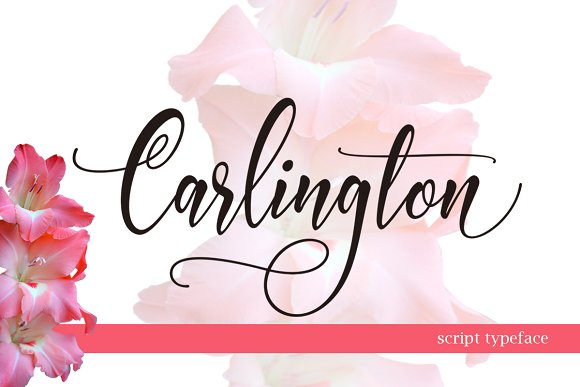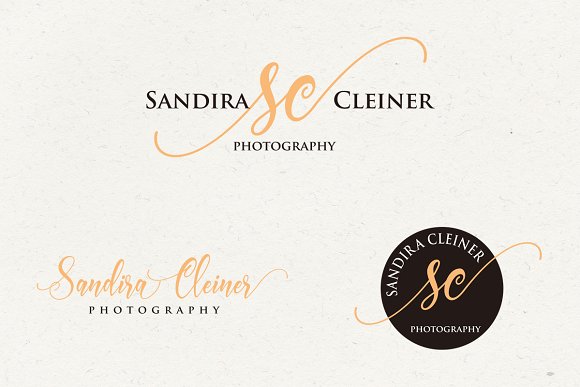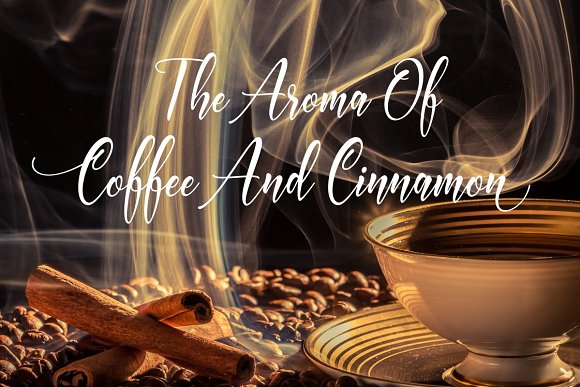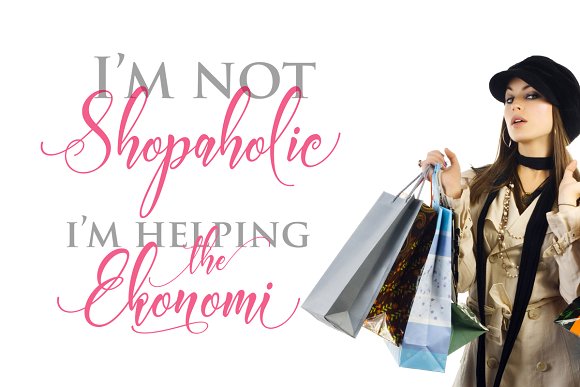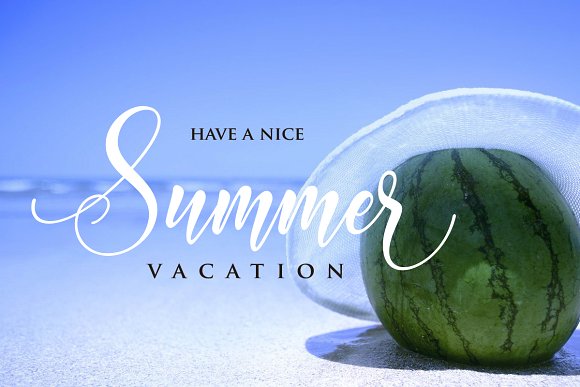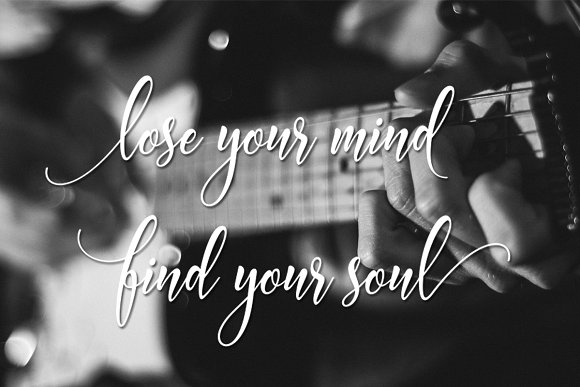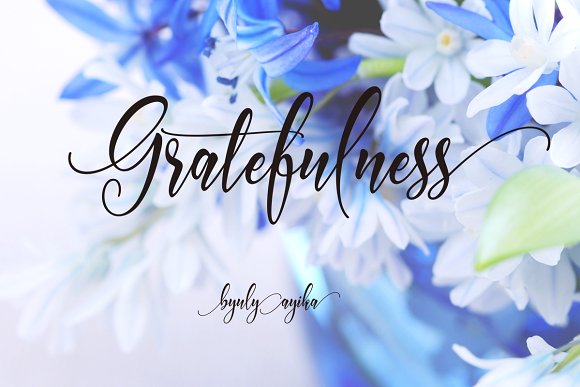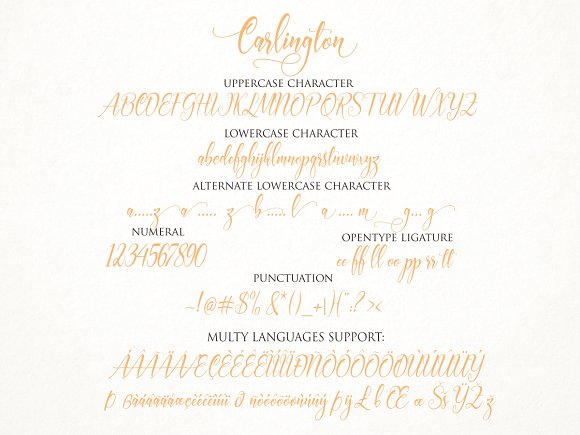
HomeScript FontsCarlington Font Script Fonts Carlington Font FacebookXPinterestWhatsApp Carlington Font Poster 2 Carlington Font Poster 3 Carlington Font Poster 4 Carlington Font Poster 5 Carlington Font Poster 6 Carlington Font Poster 7 Carlington Font Poster 8 About Carlington Font Carlington Script is a modern script font with over 340 unique glyphs. DOWNLOAD ON CREATIVE FABRICAThis font is sold and delivered by Creative Fabrica. Font Canyon may earn a commission if you buy through this link. People also explored Honey Moon Script Font Creatives Font Freshtea Font Notebook Font Simple Notes Font Sandat Font Steven Fransisco Font Dolphinero Font Hightlight Font 419 0 TagsCarlington Font Previous articleCornelia FontNext articleBellagio Font LEAVE A REPLY Cancel reply Comment: Please enter your comment! Name:* Please enter your name here Email:* You have entered an incorrect email address! Please enter your email address here Website: Save my name, email, and website in this browser for the next time I comment. Personal Use Free Waverly Date Personal Use Free Read more about this font Strasua Personal Use Free Read more about this font Beloved Script Personal Use Free Read more about this font Panaroe Personal Use Free Read more about this font BLOG Best Fonts for YouTube Videos: Make Your Thumbnails Stand Out Best Fonts for YouTube Videos: Make Your Thumbnails Stand Out Choosing the right font can make a massive difference in how your YouTube videos perform.... Top 7 Google Fonts Alternatives for Faster and Privacy-Friendly Web Design (2025) Elegant Wedding Invitation Fonts – Handwritten & Script Fonts Modern Sans-Serif Fonts That Brands Love in 2025